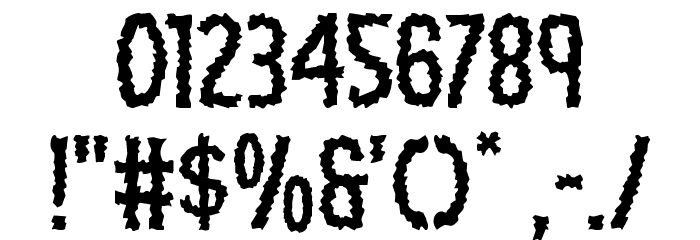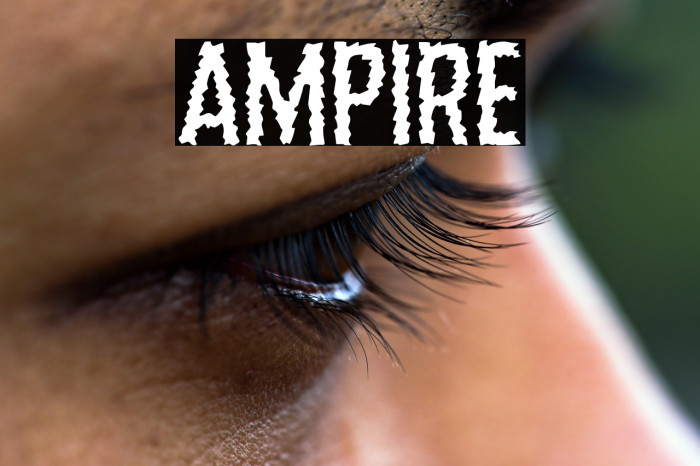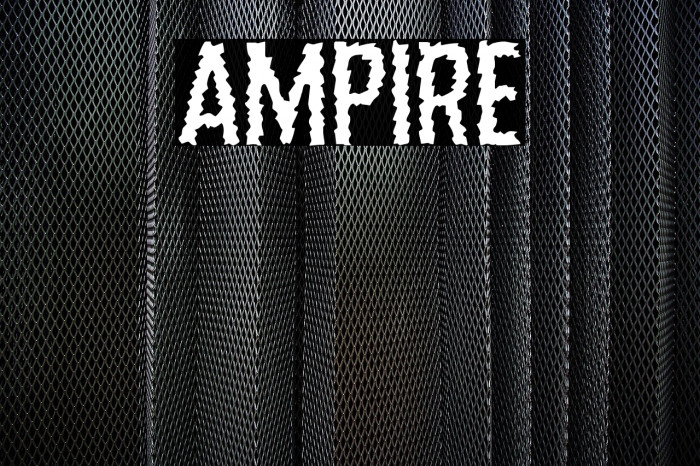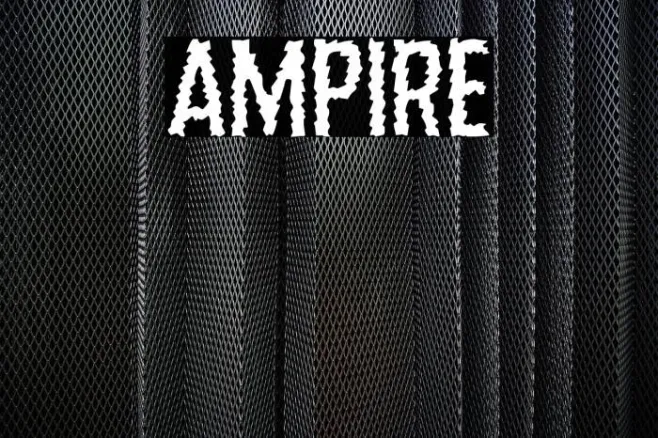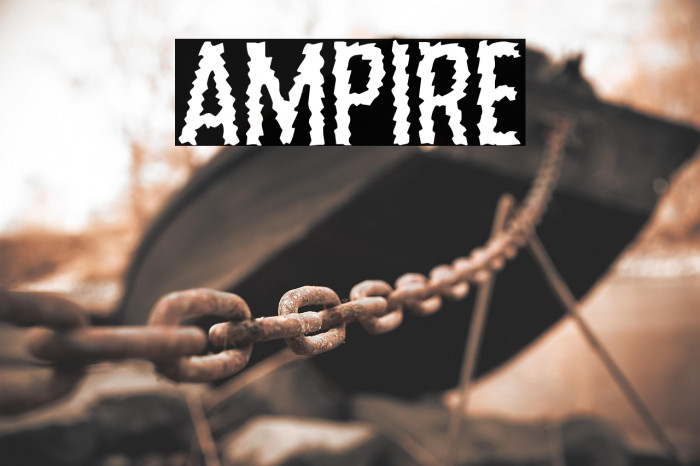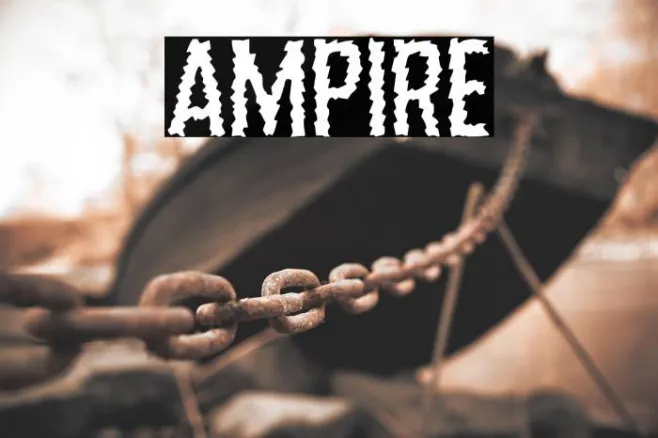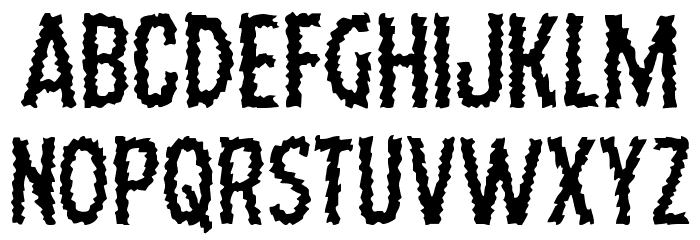
Ampire Font
Ampire Description
This font features a jagged, electrifying design that gives it a dynamic and energetic appearance. The characters are bold and have a rough, zigzag edge that creates a sense of movement and excitement. The uppercase and lowercase letters maintain a consistent style, with each character exhibiting the same sharp, angular edges. Numbers and special characters follow the same design principles, ensuring a cohesive look across all glyphs. This font is ideal for projects that require a bold, attention-grabbing typeface with a unique and edgy aesthetic.
| Overall Style | Modern, Edgy |
| Proposed Projects | Perfect for music album covers, event posters, video game titles, and any project needing a bold, edgy look. |